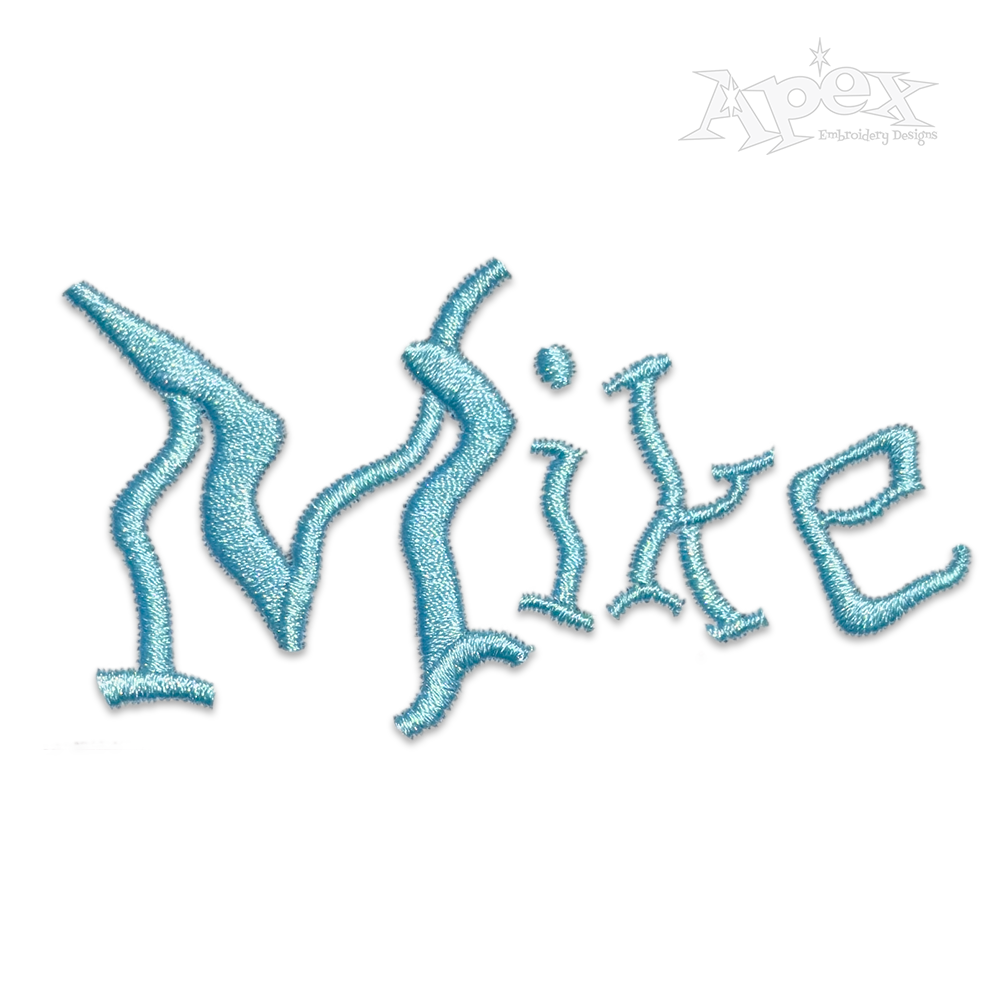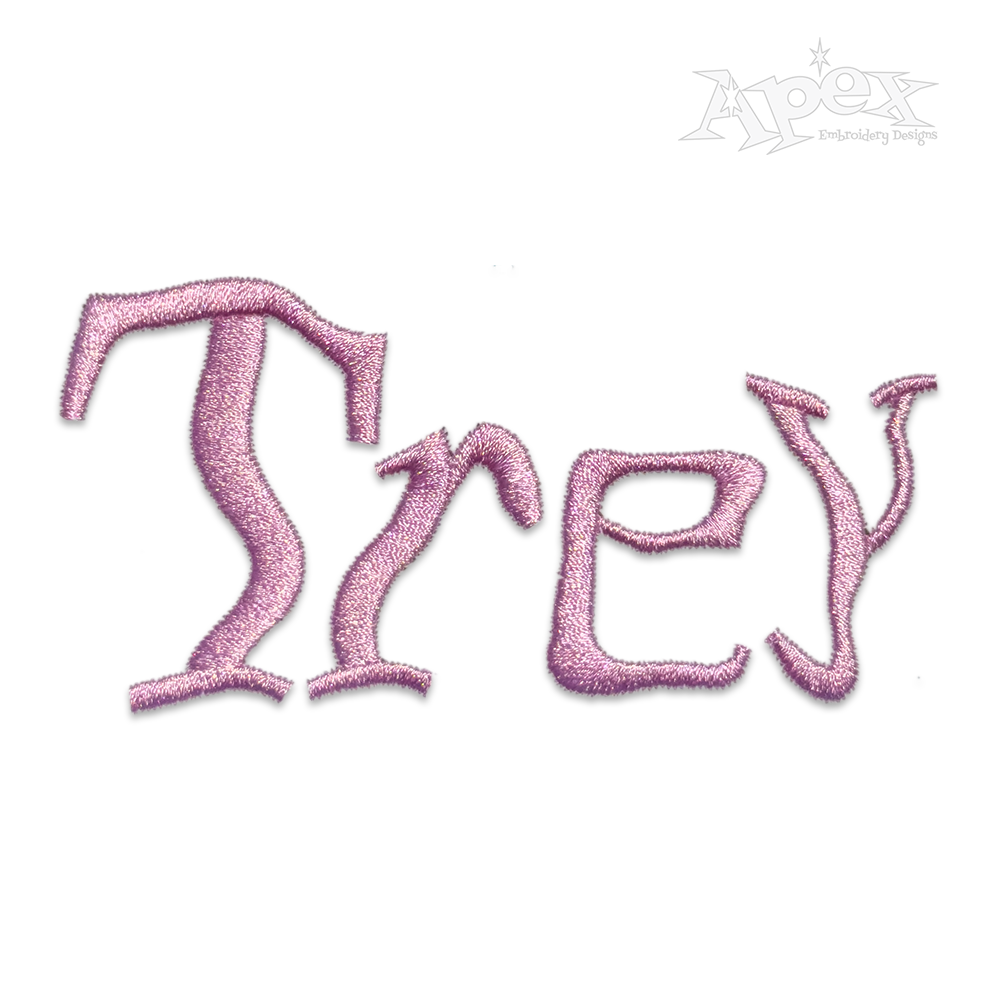
Steam Embroidery Font
Watching a ribbon of fragrant vapor drift upward into cool air reveals a captivating dance of weightless curves, sudden swells, and effortless transitions. That fluid grace inspired the creation of the Steam Embroidery Font. Designed to translate the ethereal beauty of swirling smoke and rising mist into rich, tactile thread art, this satin stitch alphabet moves with magnetic energy. Each letterform flows with an organic freedom that catches light across every satin column, creating a visual rhythm that feels simultaneously futuristic and grounded in bespoke craftsmanship. Whether accenting avant-garde apparel or crafting an unexpected custom monogram, this font introduces motion and intrigue to every stitch-out.
Digitized purely in luminous satin stitch, this versatile collection includes four meticulously scaled heights to accommodate everything from subtle personalizations to bold, statement-making lettering:
- 1.0 inch – Ideal for sleek cuff monograms, collar points, subtle chest accents, and accessories.
- 1.5 inch – Sized perfectly for pocket crowns, luxury loungewear, and personalized gifting.
- 2.0 inch – A dramatic scale suited for sweatshirt chests, tote bags, and personalized outerwear.
- 2.5 inch – Maximum impact for standalone initials, jacket backs, and bold statement monogramming.
Project Ideas for Steam Embroidery Font
The sinuous, modern aesthetic of this typography lends itself to projects that break away from traditional lettering:
- Urban Streetwear & Denim: Stitch oversized initials across the center back of a distressed denim jacket, heavy fleece pullover, or bomber jacket.
- Bespoke Barista & Lounge Linens: Elevate canvas aprons, specialty tea towels, or textured linen coasters for artisanal coffee bars, mixology lounges, and hospitality spaces.
- Contemporary Resort & Loungewear: Transform fluid silk kimonos, plush waffle robes, and modal pajama sets with a dynamic, drifting single-letter monogram.
- Curated Bags & Totes: Add an artistic edge to heavy duck canvas market totes, weekend duffels, and zippered travel pouches.
- Personalized Gifting: Create unmistakable gifts for those who appreciate modern calligraphy, atmospheric design, and sleek graphic aesthetics.
Because the letterforms feature asymmetric swirls and vaporous curls, thoughtful placement enhances their natural sense of movement:
- Vertical Sleeve Run: Align initials vertically down the forearm or along the outer bicep of a sweatshirt to mirror the upward rise of smoke.
- Offset Left Chest: Position a 1.5-inch or 2-inch glyph slightly lower and closer to the armhole than traditional monograms to lean into its edgy, modern flair.
- Collar Point & Lapel: Use the 1.0-inch size on a tailored collar or jacket lapel for an unexpected flash of fluid satin luster.
- Angled Corner on Linens: Orient the character diagonally in the bottom corner of cocktail napkins and table linens, letting the strokes guide the eye along the fabric edge.
Steam Embroidery Font Craft & Letterform Details
Digitizing an element as elusive as smoke requires an uncompromising approach to stitch geometry. Rather than relying on rigid, mechanical letter paths, each stroke in the Steam Embroidery Font was plotted by hand to emulate the billow, twist, and dispersion of rising vapor. Broad satin bodies taper effortlessly into razor-sharp wisps, demanding deliberate underlay scaffolding to prevent thread sinkage and maintain crisp structural stability across varying textiles.
We paid specific attention to the angle changes within every arc. Smooth, gradual stitch-direction shifts ensure that light reflects continuously across the sheen of your thread without creating harsh, faceted breaks. At intersecting plumes, density has been carefully relieved to eliminate lumpiness and puckering, providing a flat, butter-soft stitch-out that bends naturally with the fabric. The result is a sculptural, liquid typography that turns every embroidered piece into an expressive work of art.